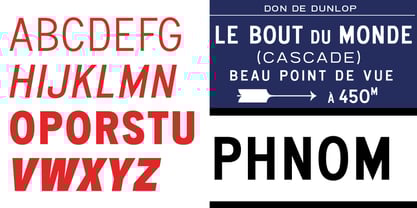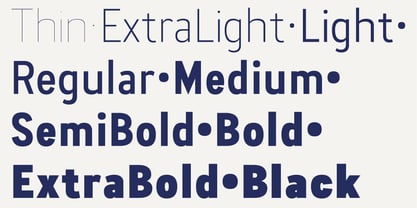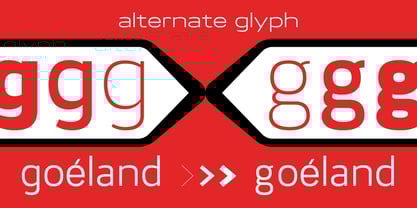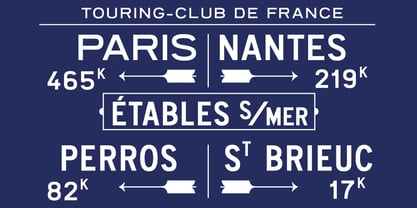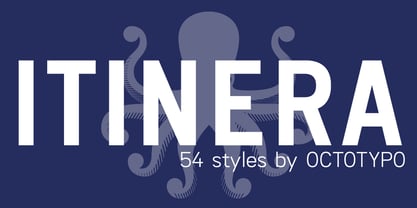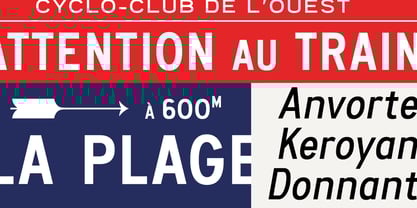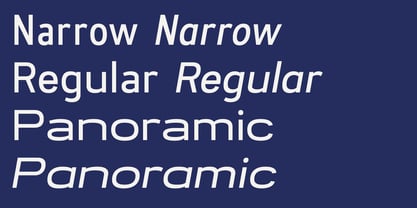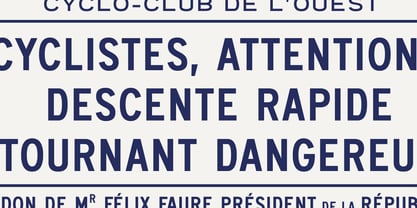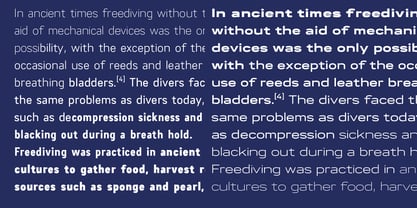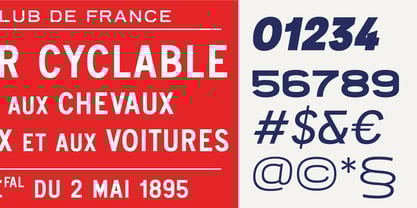
Itinera
by Octotypo
The Itinera Font Family was designed by Julien Janiszewski and published by Octotypo. Itinera contains 54 styles and family package options.
Itinera is inspired by the timeless aesthetic of vintage early French road signage, where clarity and efficiency were essential. Its design blends geometric rigor with subtle humanist touches to ensure excellent readability at both close and long distances. The family offers Regular, Narrow and Wide styles in roman and italic, allowing fluid adaptation from text to impactful wayfinding systems. Consistent stroke modulation, open counters and balanced spacing create a stable rhythm, while the overall structure preserves the confident, quietly authoritative tone of classic directional typography. Ideal for signage, editorial uses and identity systems seeking functional elegance and timeless and contemporary design.
Itinera